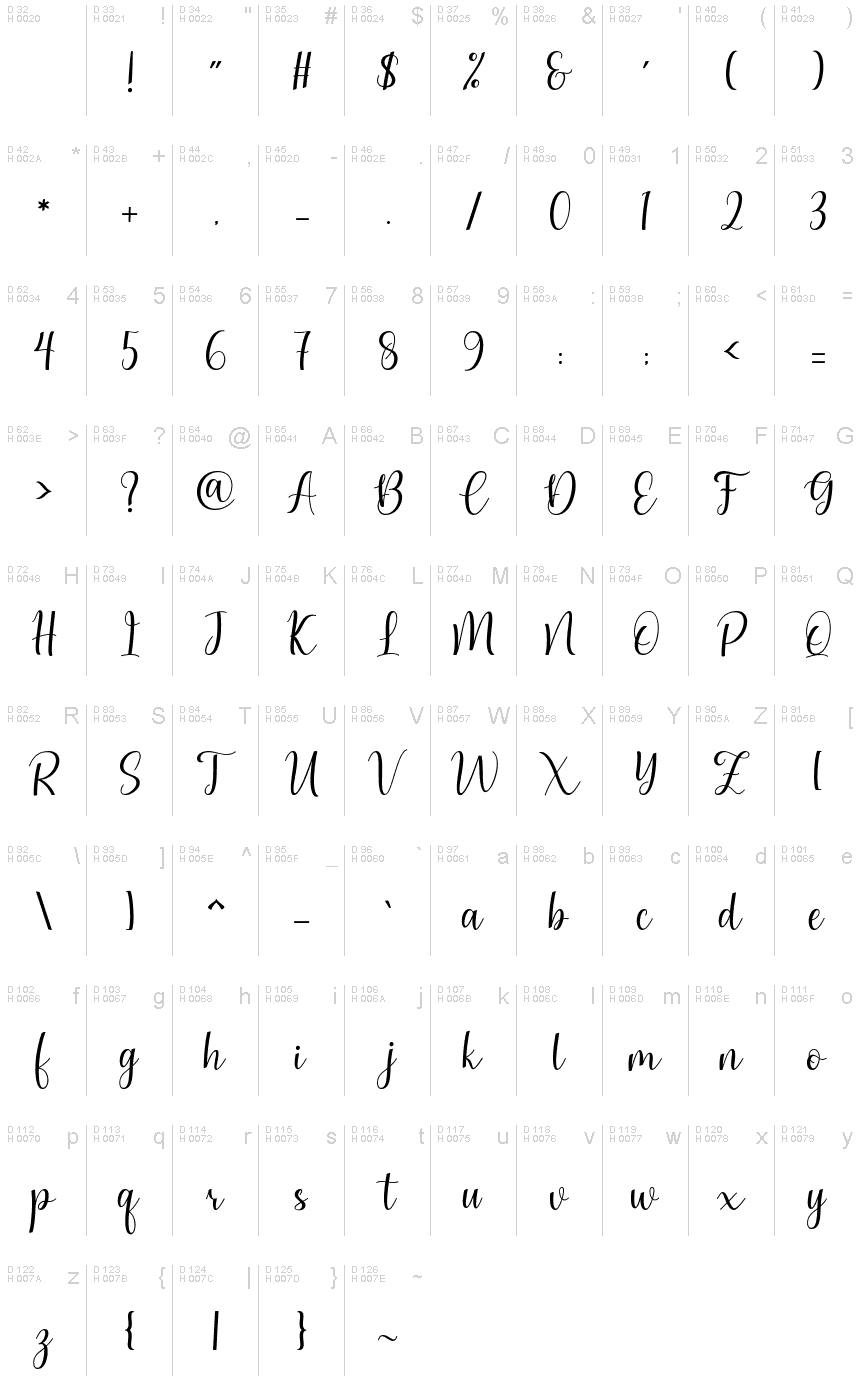
Beautiful
Beautiful is a captivating calligraphy font by Cut Story. With its semi-light weight, this font adds an elegant touch to any project, making it perfect for wedding invitations, romantic quotes, and feminine branding. Its graceful curves and flowing strokes create a sense of sophistication and beauty. Whether used in digital or print media, Beautiful is sure to elevate your designs, bringing a touch of class and refinement. Let this enchanting typeface transform your projects into stunning works of art that leave a lasting impression on your audience.